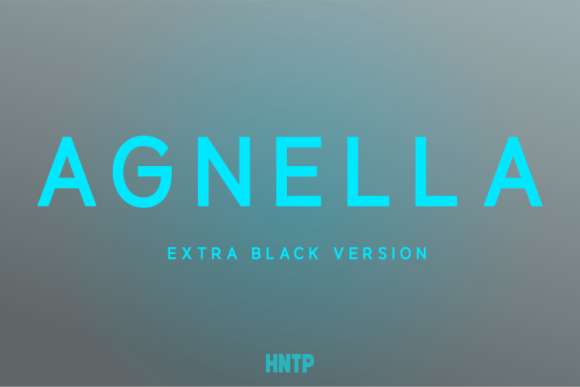
Behold Agnella Extra Black, a sans serif font that exudes authority and sophistication. Its sharp, geometric lines are a testament to its modern and minimalist aesthetic. Each character is meticulously crafted to convey a sense of strength and stability, making it the perfect choice for those seeking to make a powerful impact with their words. From captivating headlines to striking logos, Agnella Extra Black commands attention and leaves a lasting impression.
Agnella's vertically and horizontally cut stems create an intriguing visual tension that draws the eye and sparks curiosity. Its distinct letterforms, slightly condensed and condensed, exude a sense of refinement and elegance. This font is versatile enough to adapt to any design project, from sleek and contemporary to bold and experimental. Whether you're a designer, marketer, or entrepreneur, Agnella Extra Black will elevate your creative projects to new heights.
Embrace the power of Agnella Extra Black and let your words speak with boldness and confidence. Download this captivating font today and unleash your creativity. Transform your designs into unforgettable experiences that resonate with your audience. Agnella Extra Black is more than just a font; it's a statement of individuality, audacity, and elegance. It's time to leave your mark on the world with a font that speaks louder than words.